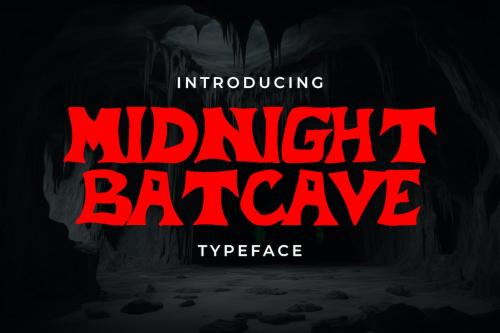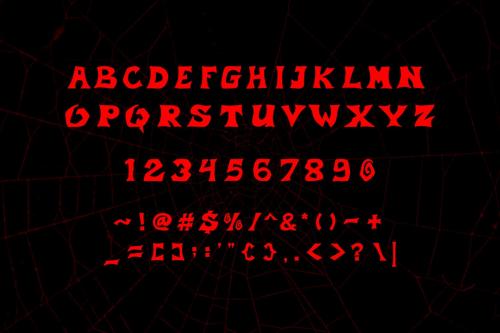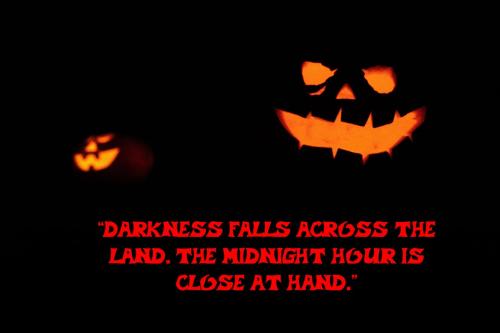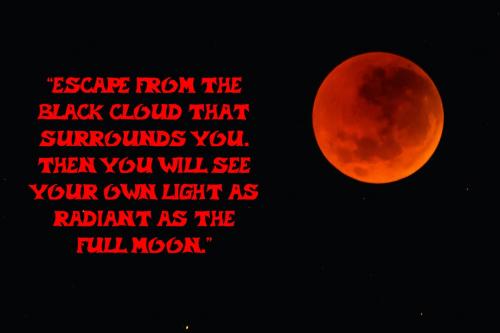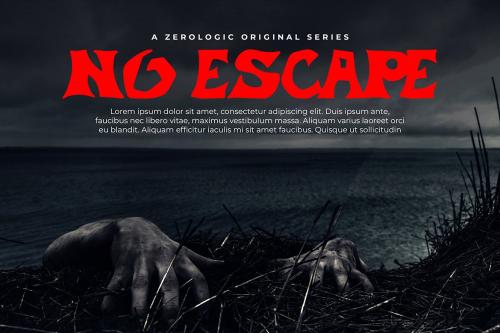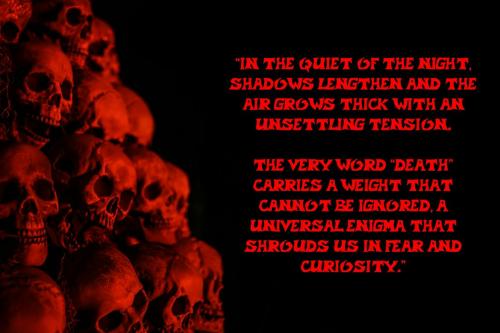
蝙蝠洞夜幕字体
Midnight Batcave Font
Hi we will introducing our new halloween display font, the name is Midnight Batcave Font very suitable for use in your work presentations such as blog design, modern design, web design, invitation cards, and others. please download and enjoy!